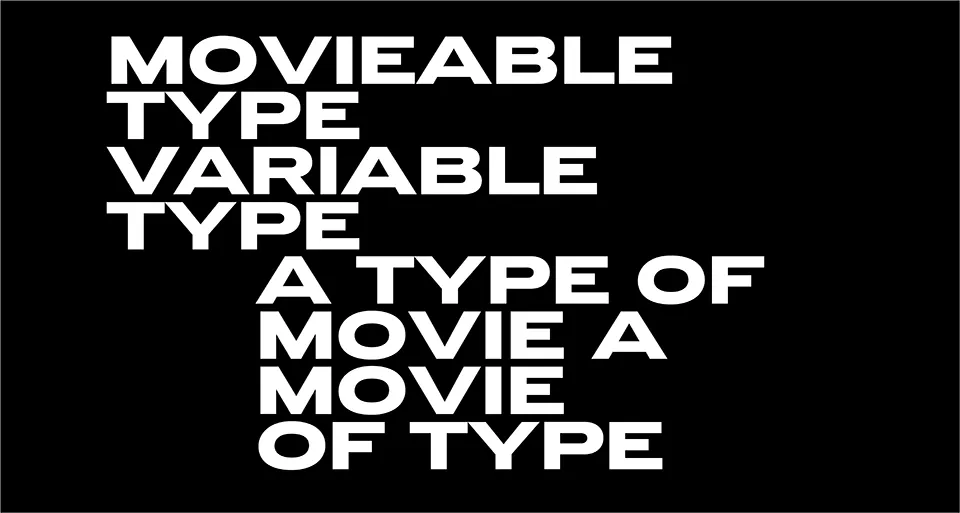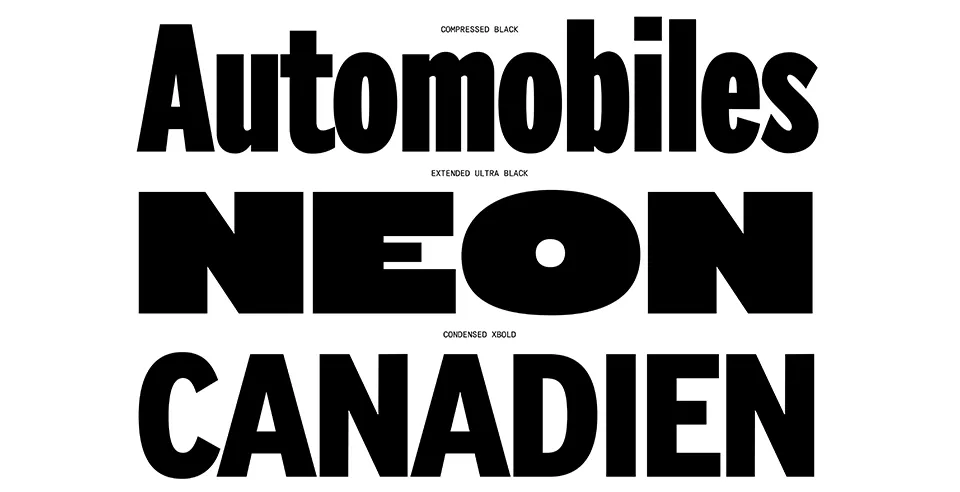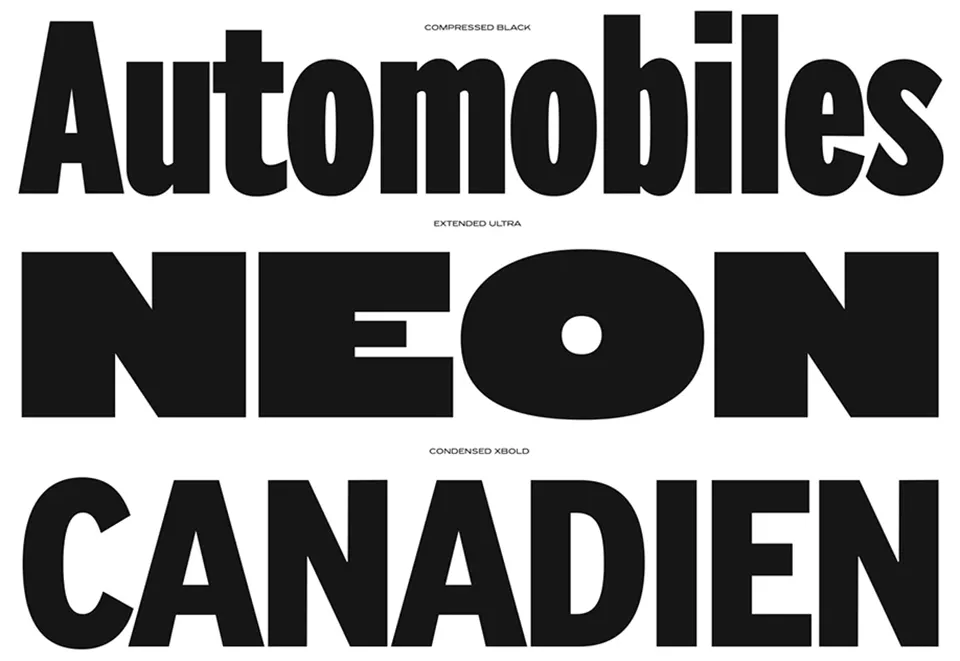
PF Grand Gothik Font Family
PF Grand Gothik Font Family is a postmodern, multiscript, multifaceted, and variable type system that pays homage to the evolution of grotesque (gothic) typefaces. Inspired by late 19th and early 20th-century European and American grotesques, it traces the genre through movie theater marquees, new wave cinematography, and American highway signage, blending historical references with contemporary design. Originally created in 2017 as a bespoke typeface for a bilingual magazine, it was later reimagined and released commercially. The family features three stylistic alternates, each reflecting a different era and style, and supports Latin, Greek, and Cyrillic scripts. With a wide range of weights, widths, and italics, as well as an extended character set including symbols, icons, and emojis, PF Grand Gothik offers exceptional versatility for branding, editorial, web, and signage applications.